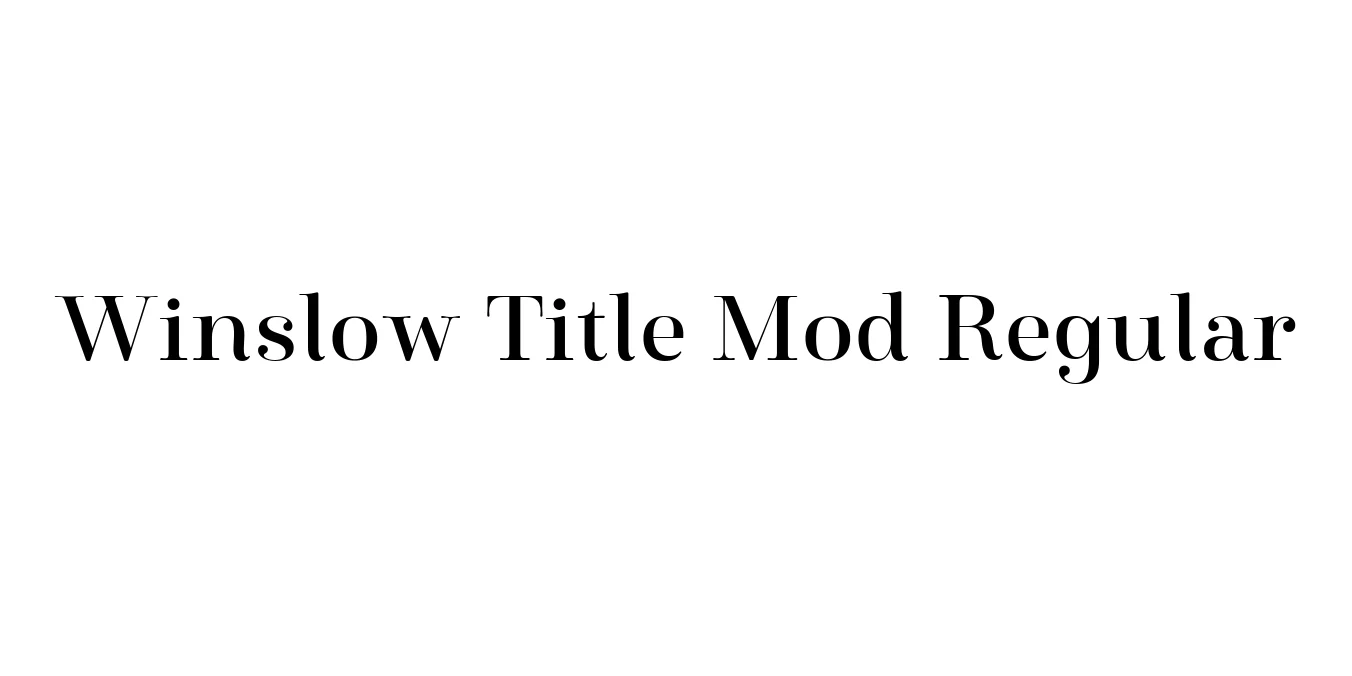
Winslow Title Mod Regular
Designed by Kimmy Kirkwood
Winslow Title Mod Regular is a sophisticated serif typeface designed by Kimmy Kirkwood of Kimmy Design. This specific variant belongs to the broader Winslow family, which is celebrated for its blend of classic elegance and contemporary flair. The "Mod" designation emphasizes its modern attributes, featuring high contrast between thick and thin strokes, vertical stress, and refined ball terminals that provide a distinctively high-fashion aesthetic.
As a display-centric font, Winslow Title Mod is crafted to command attention in large sizes. Its architecture draws inspiration from Didone styles but softens the rigid geometry with playful curves and unique ligatures. This makes it an exceptional choice for editorial design, luxury branding, and headline typography where a balance of authority and grace is required.
Winslow Title Mod Regular Best Uses
Perfect for magazine mastheads and high-end fashion spreads.
Ideal for luxury labels, cosmetics, and boutique identity systems.
Adds a sophisticated touch to wedding stationery and formal event invites.
Creates a striking first impression for high-end lifestyle blogs.